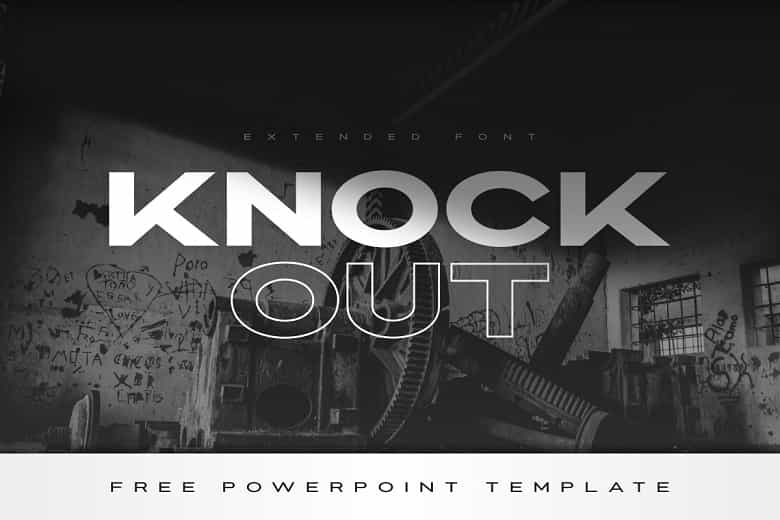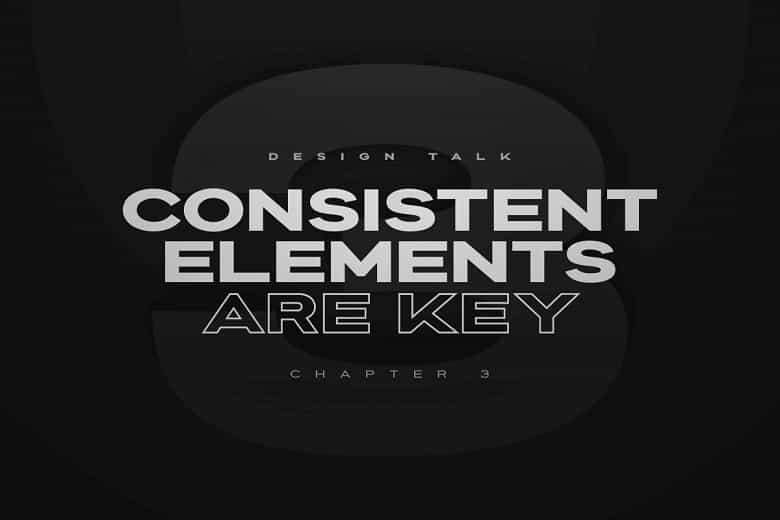
Discover Knockout Font, part of the Sans Serif collection—a versatile and unique font perfect for adding a personal touch to your projects. Download it for free and enjoy crafting designs with style, from invitations to social media posts. This font is available exclusively for personal use, giving you the freedom to create without limits. Unlock your creativity with Knockout Font today!
Knockout is an extended font which is designed by Sensatype. Based on popular sans-serif fonts with some modifications to make it more modern, bold, unique and having classy look, this is a geometric extended font. For any purpose, for brand, logos, magazines, films, websites, headlines, titles, captions, games, apps, posters, t-shirts and many more.